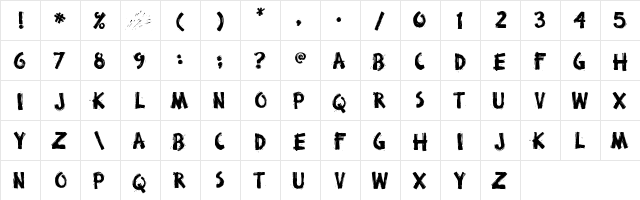
Broken Stick Normal
| Foundry | Nigel Babb - Burning Duck Dpt |
| Designer | Matt Tapson |
Design Context for Broken Stick Typeface
Broken Stick is a composed and adaptable typeface that performs quietly and consistently across a wide range of design contexts.